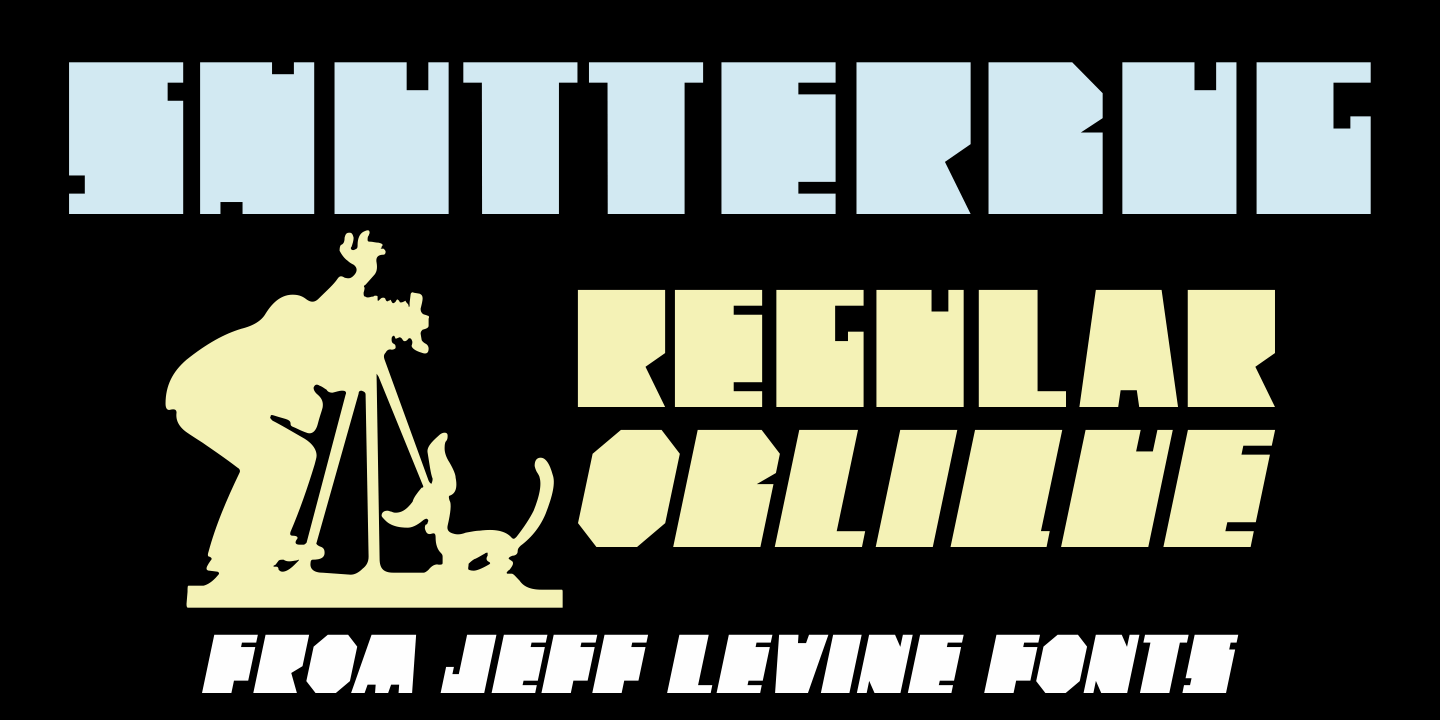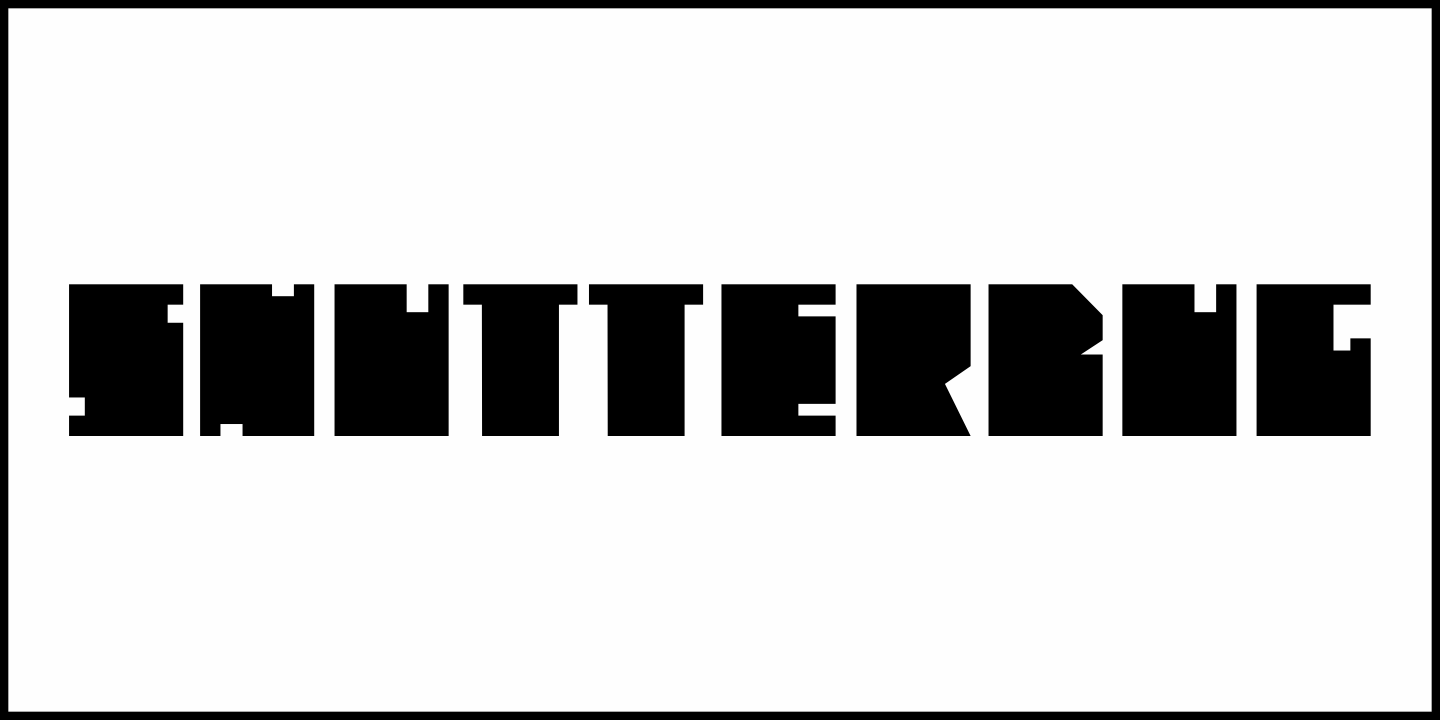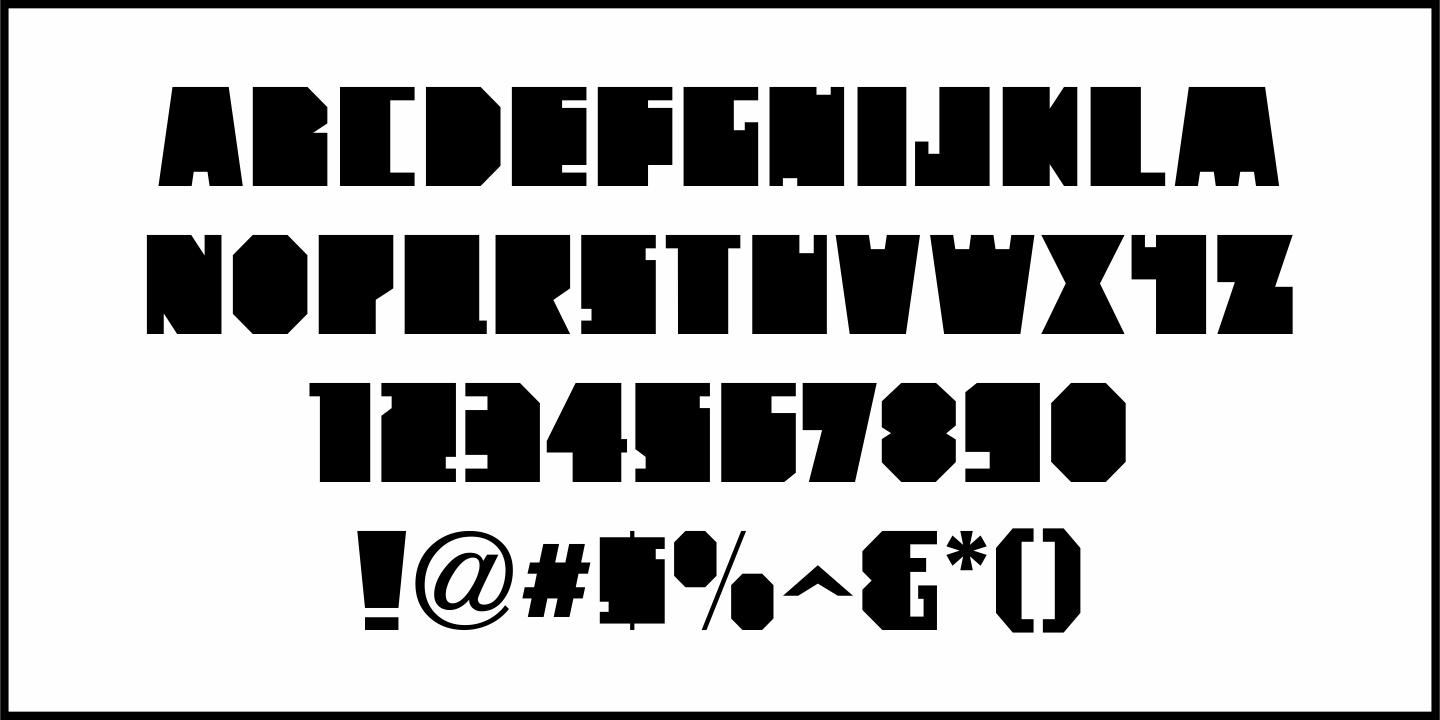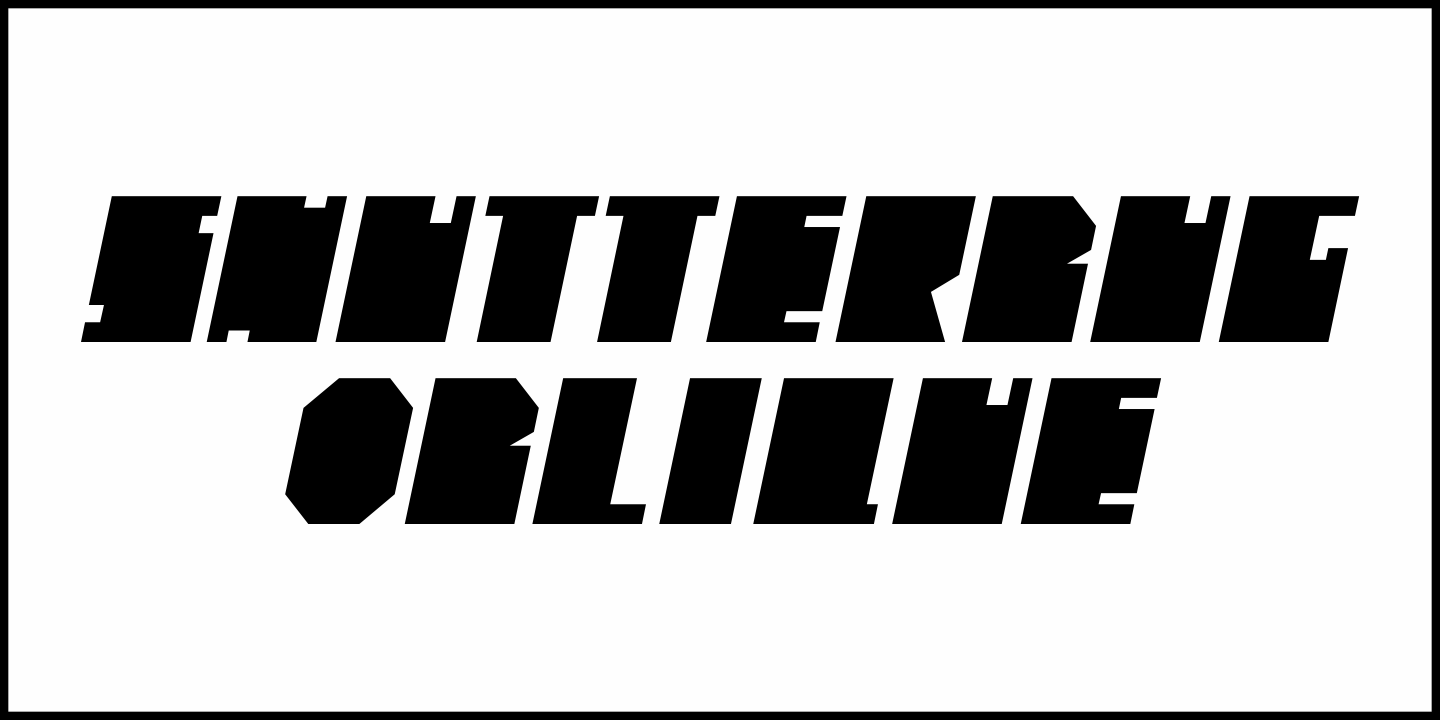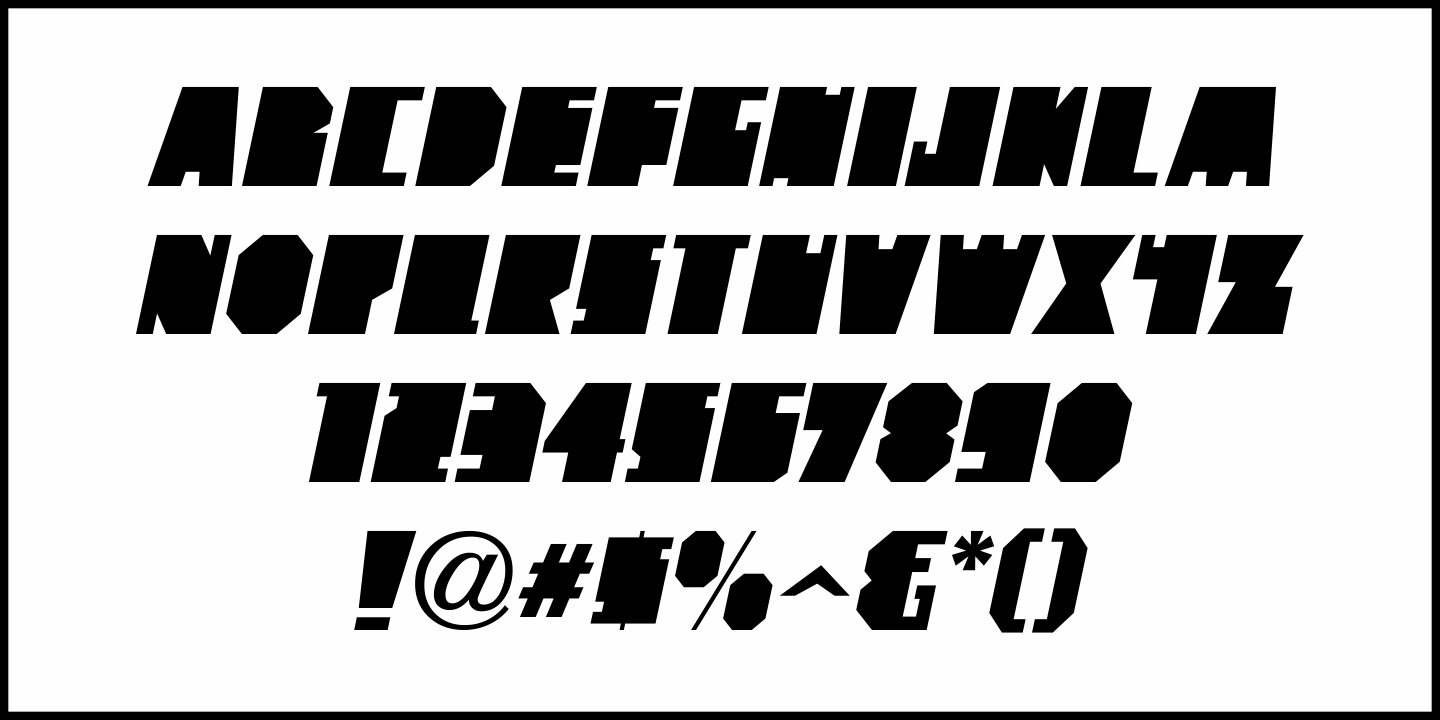
Shutterbug
On April 20, 1950, film comedian Jerry Lewis indulged his love of cameras by opening up Jerry Lewis’ Camera Exchange on Vine Street in Hollywood. It closed in 1951.
Thanks to an image preserved within newsreel footage of the shop’s grand opening night, a glimpse of the post-Art Deco signage with its unusual, block style lettering inspired a digital version.
Highly unusual and best for novelty projects, Shutterbug JNL is available in both regular and oblique versions.